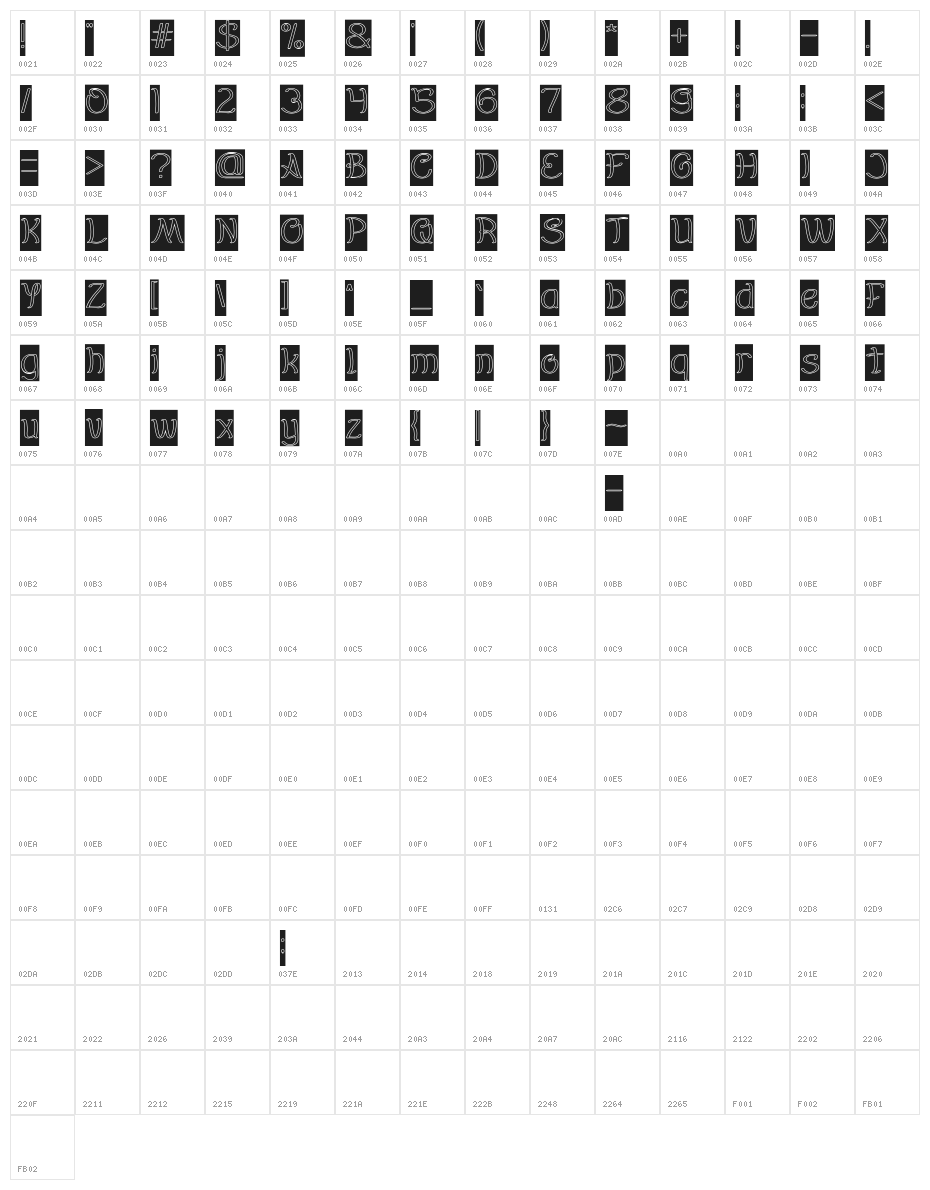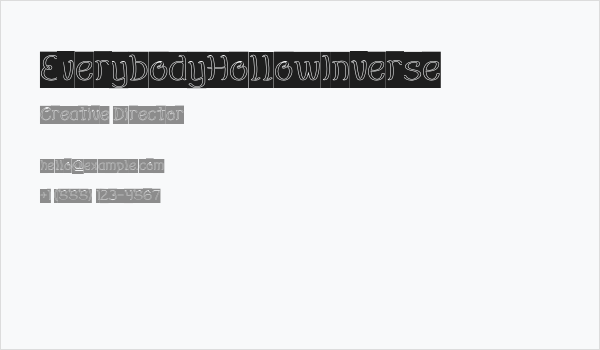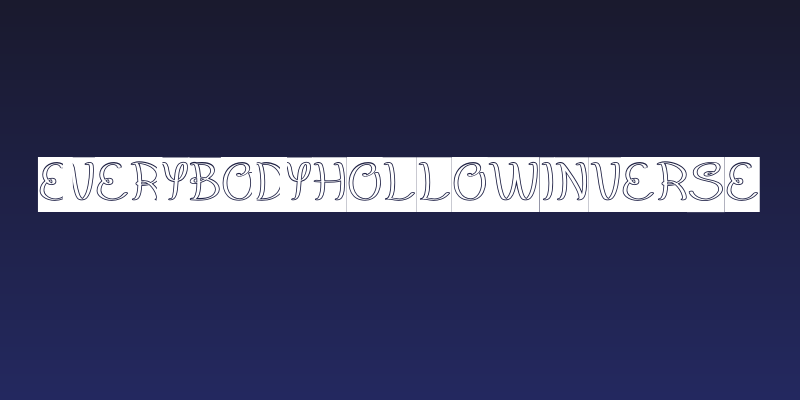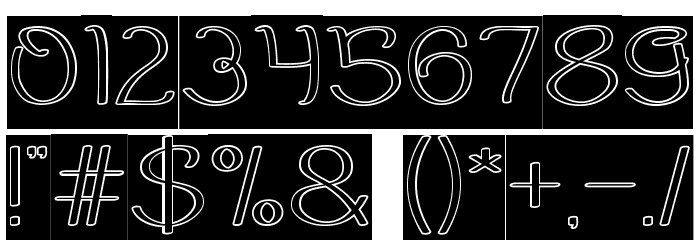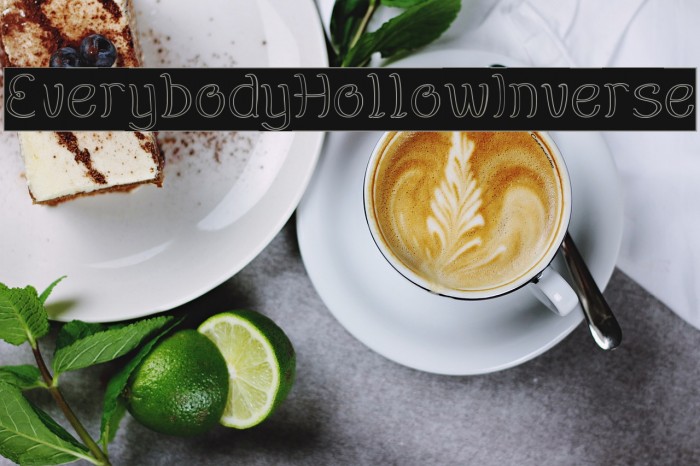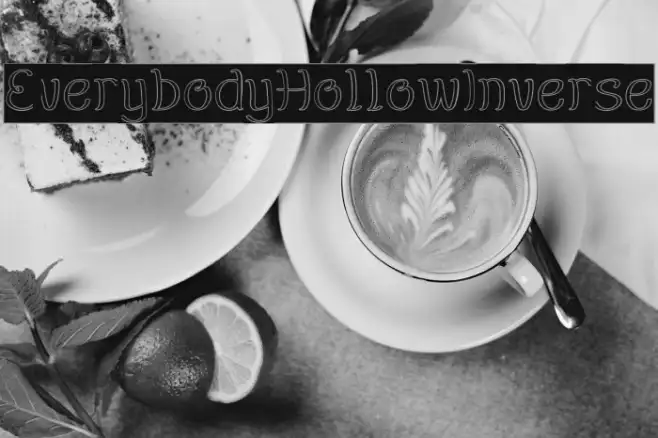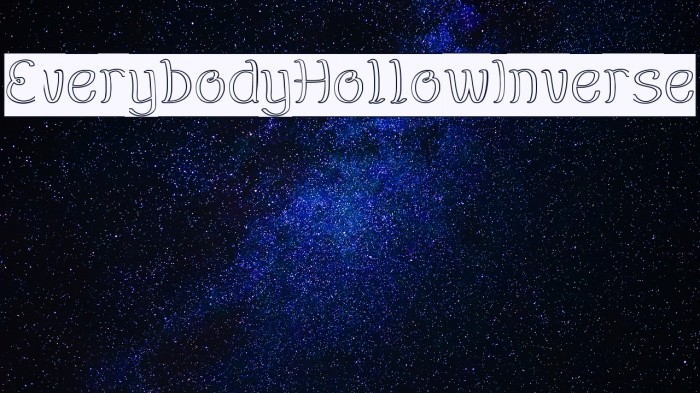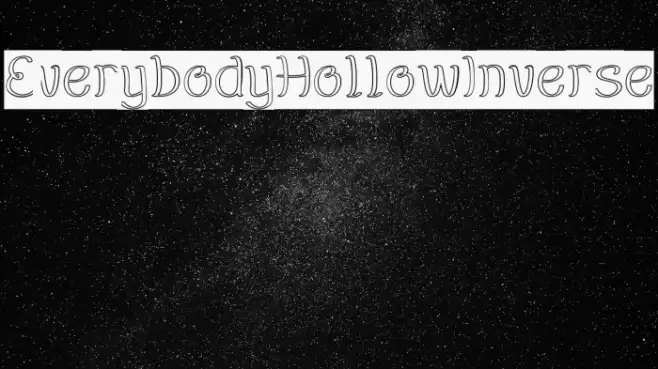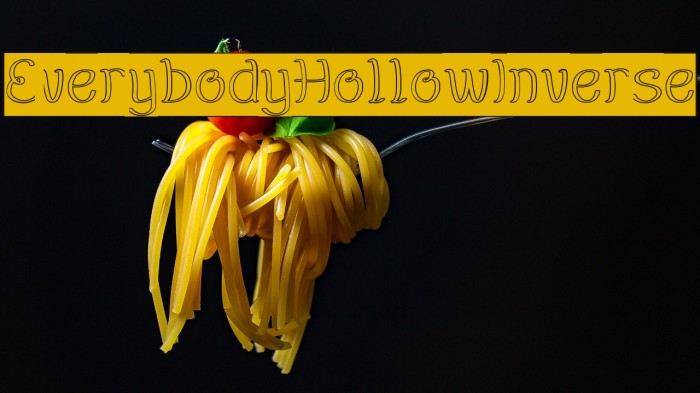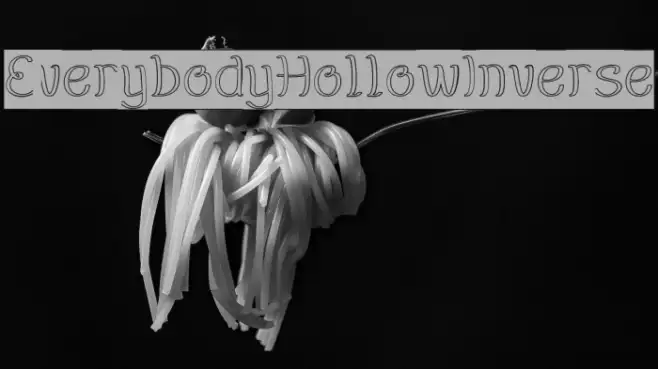
EverybodyHollowInverse Font
EverybodyHollowInverse Description
This font features a playful and whimsical design with hollow, outlined characters that give it a unique and eye-catching appearance. The strokes are consistent in width, creating a uniform look across all characters. The uppercase and lowercase letters maintain a cohesive style, with slight variations that add to the font's charm. The numerals and special characters are designed to match the overall aesthetic, ensuring a harmonious look throughout. This font's distinct style makes it suitable for creative and informal projects.
| Overall Style | Whimsical, Playful |
| Proposed Projects | Ideal for children's books, playful branding, party invitations, and creative posters. |